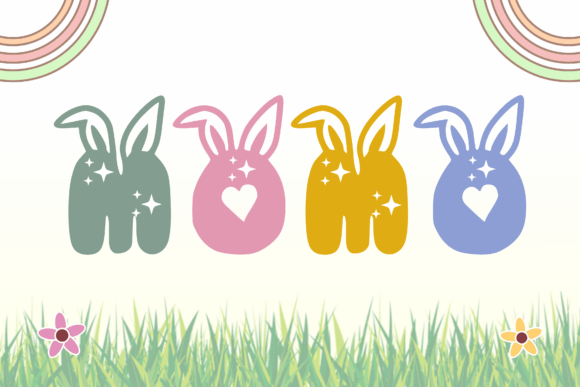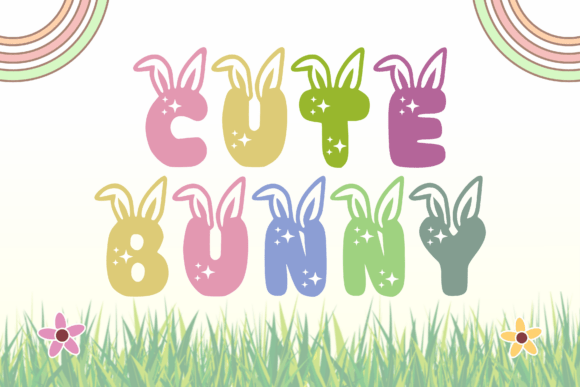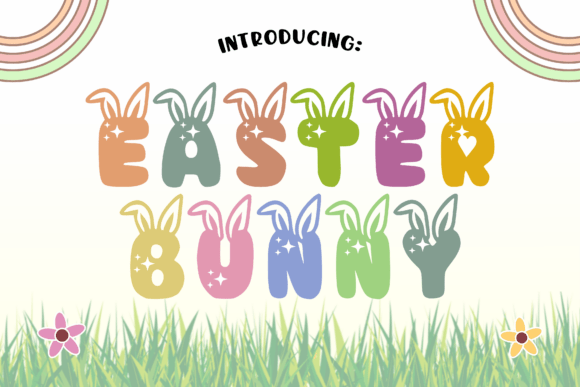
Introducing the Easter Bunny Font: A Delightful Nod to Vintage Charm
As the Easter season approaches, designers and crafters are on the lookout for unique and festive typography to add a touch of whimsy to their projects. Look no further than the Easter Bunny font, a charming and playful typeface that combines vintage allure with a modern Easter twist. In this article, we’ll dive into the world of the Easter Bunny font, exploring its features, uses, and the inspiration behind its creation.
A Font that Hops into the Spotlight
The Easter Bunny font is a one-of-a-kind typeface that brings the magic of Easter to life. Each letter is carefully crafted with bunny ears, adding a touch of playfulness and childlike wonder to any design. The font’s retro charm is stresslessly blended with a modern aesthetic, making it perfect for a wide range of projects, from children’s alphabet books to Easter-themed crafts and decorations.
Captivating Spirit and Whimsical Design
The Easter Bunny font is designed to transport you to a world of vibrant imagination and precious nostalgia. With its captivating spirit and whimsical design, this font is sure to delight designers, crafters, and anyone who loves the Easter season. Whether you’re creating a children’s book, a set of Easter cards, or a festive craft project, the Easter Bunny font is the perfect choice.
Perfect for Children’s Alphabet and Easter Celebrations
The Easter Bunny font is particularly well-suited for children’s alphabet books and Easter-themed projects. Its playful and educational design makes it an excellent choice for teaching children the alphabet, while its festive aesthetic is perfect for Easter celebrations and decorations. Imagine creating a set of Easter-themed alphabet cards, each featuring a colorful and playful letter with bunny ears – the Easter Bunny font makes it possible!
The Easter Bunny font offers a range of features and benefits that make it a must-have for designers and crafters. Some of its key features include:
• Unique and playful design with bunny ears on each letter
• Retro charm with a modern Easter twist
• Perfect for children’s alphabet books and Easter-themed projects
• Captivating spirit and whimsical design
• Vibrant imagination and precious nostalgia
Using the Easter Bunny Font in Your Projects
The Easter Bunny font is versatile and easy to use, making it perfect for a wide range of projects. Here are some ideas to get you started:
• Children’s alphabet books and educational materials
• Easter-themed crafts and decorations
• Greeting cards and invitations
• Social media graphics and Easter-themed posts
• Digital art and illustrations
The Easter Bunny font is a delightful and charming typeface that adds a touch of whimsy and fun to any design. With its unique and playful design, retro charm, and captivating spirit, this font is perfect for designers and crafters looking to create festive and engaging projects. Whether you’re creating a children’s alphabet book, an Easter-themed craft, or simply looking for a fun and playful font, the Easter Bunny font is sure to delight.
Get Ready to Hop into the World of Easter Bunny Font!
So why wait? Dive into the heartwarming world of the Easter Bunny font and let your imagination roam. With its vibrant imagination and precious nostalgia, this font is sure to inspire you to create something truly special. Get ready to hop into the world of Easter Bunny font and make your designs and crafts stand out with a touch of Easter magic!